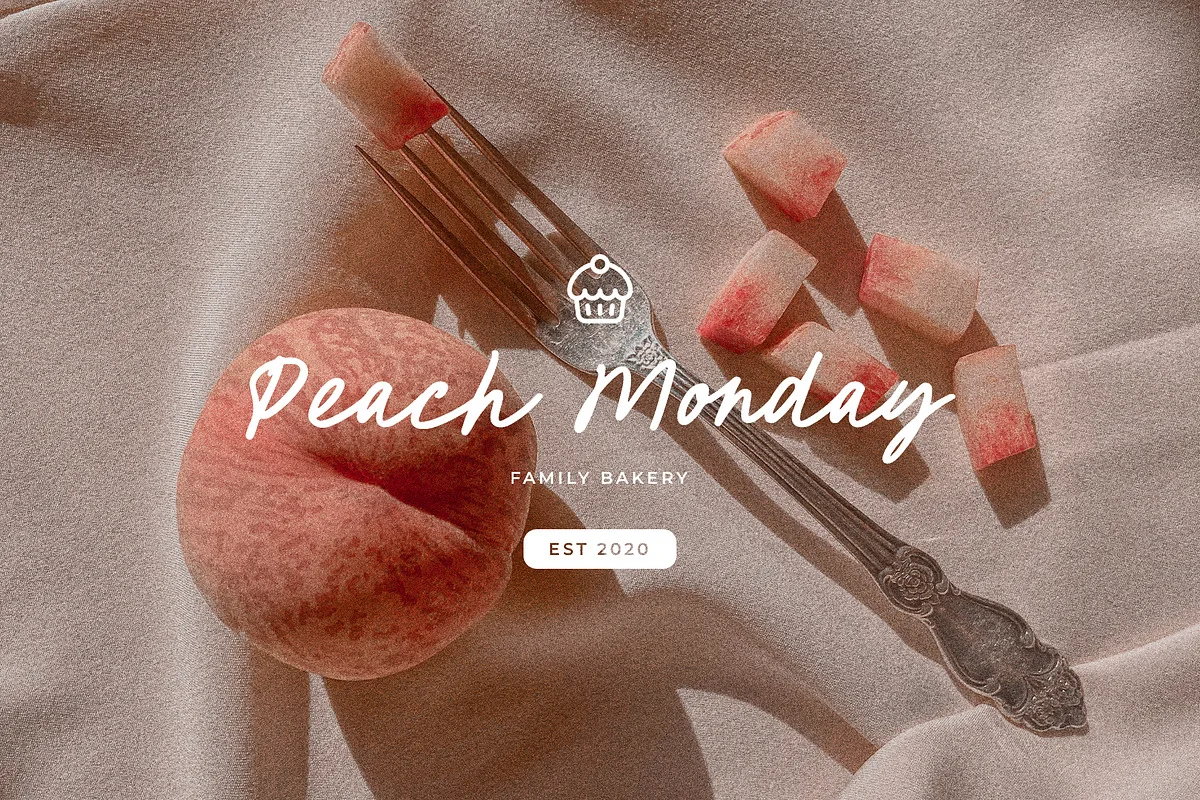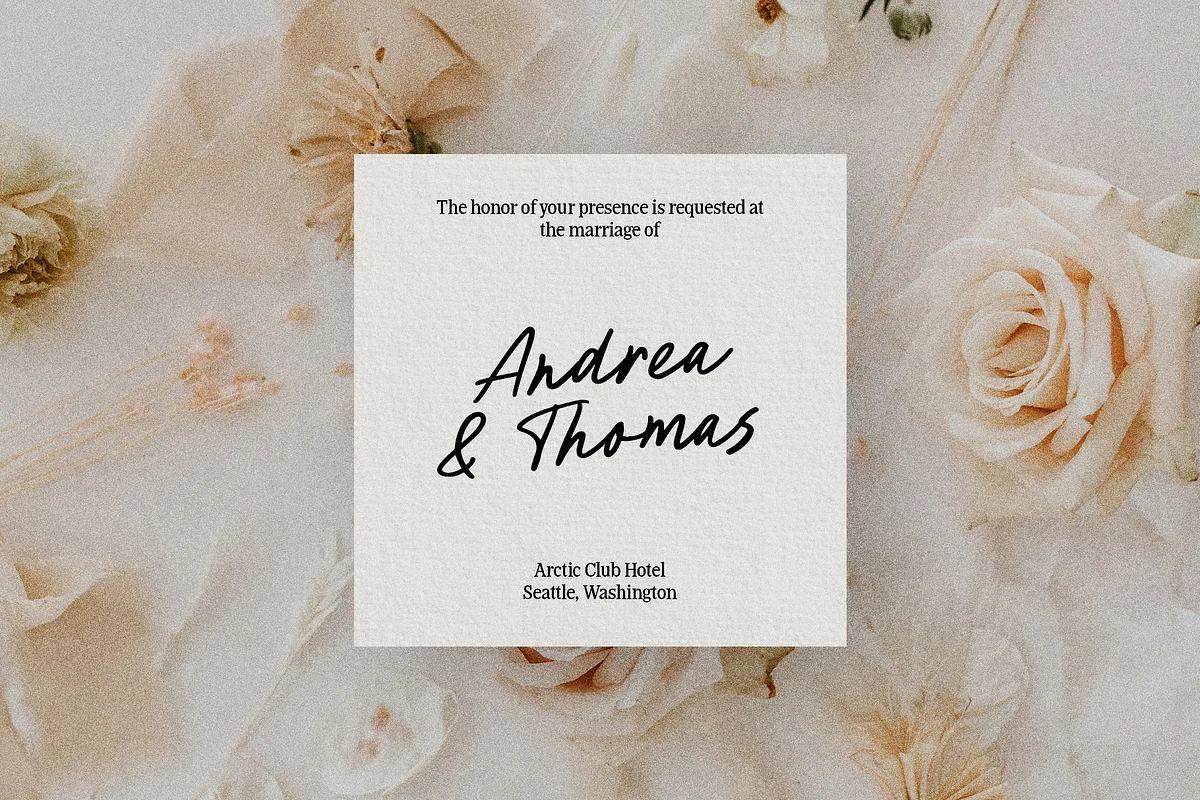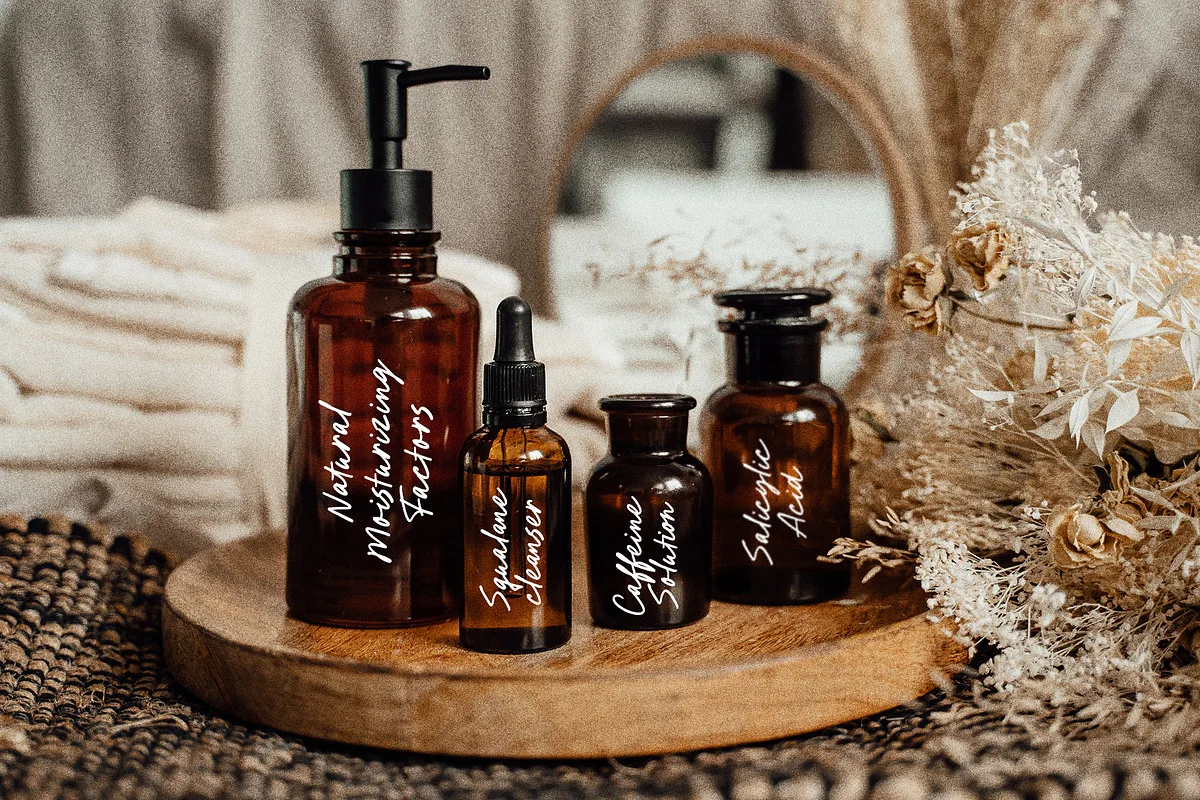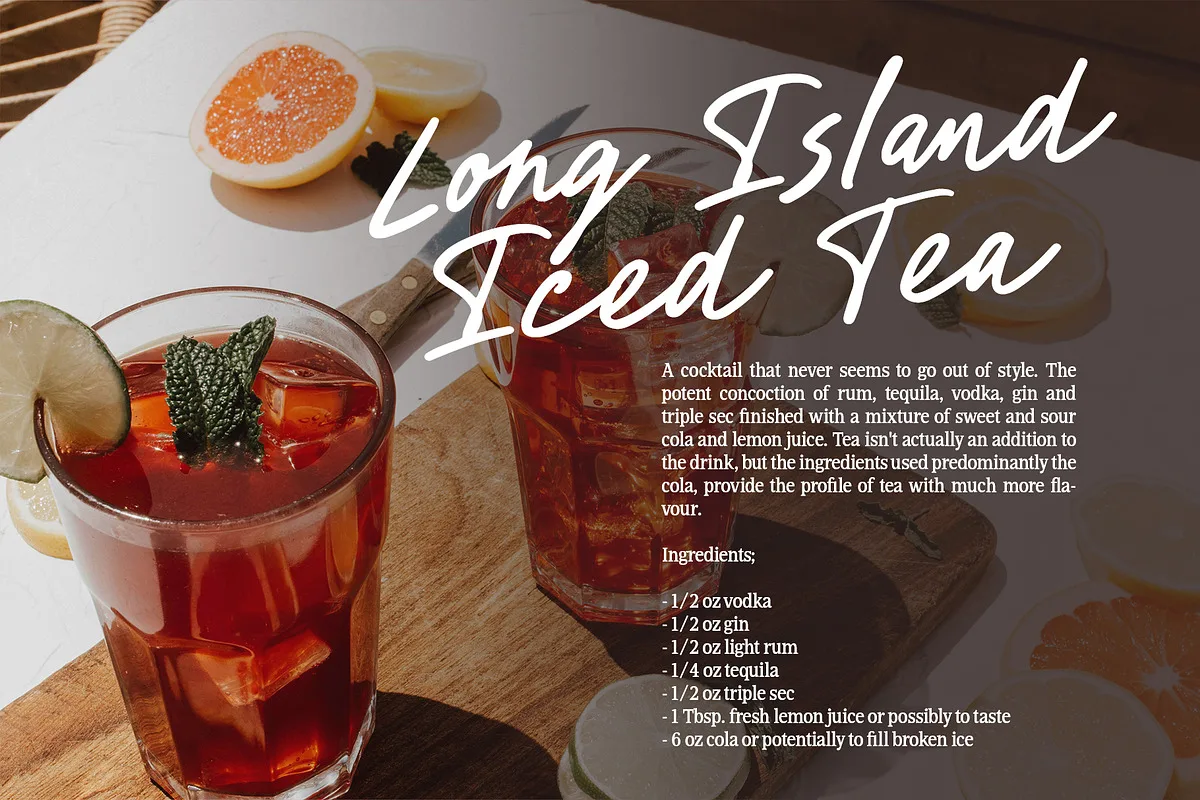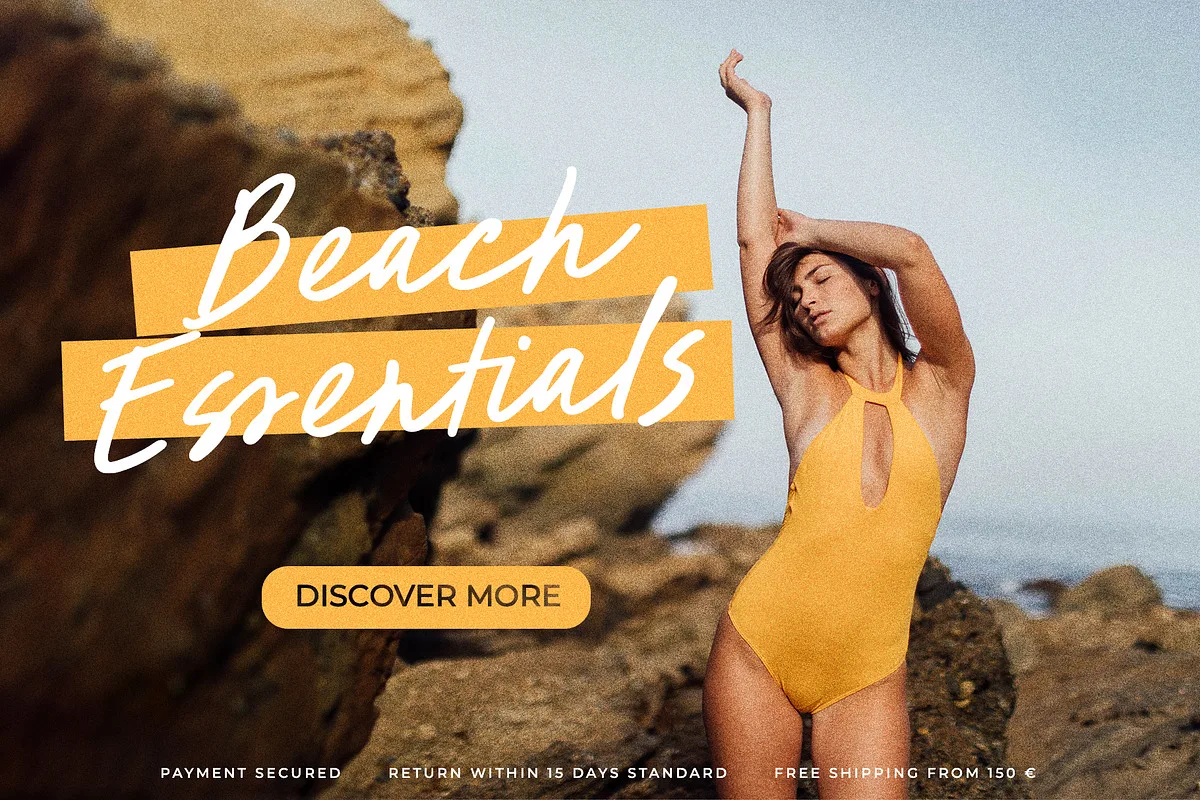
Des Montilles is a casual handwritten font. Perfect for greeting cards, wedding stationery, photographer watermark logos, modern websites, apparel design and more. Des Montilles features handwritten ligatures, beginning and end swashes for lowercase letters and heart connections.
- Full Set of standard alphabet and punctuation
- Handwritten ligatures
- Multilingual Characters